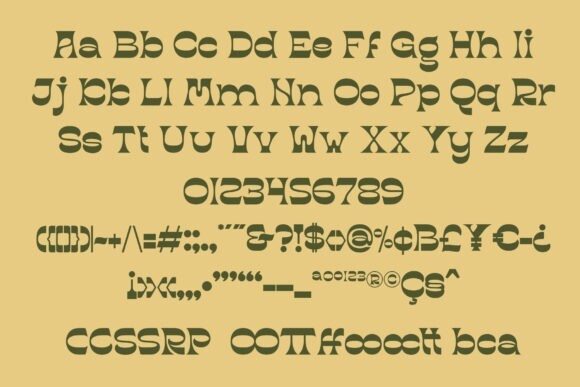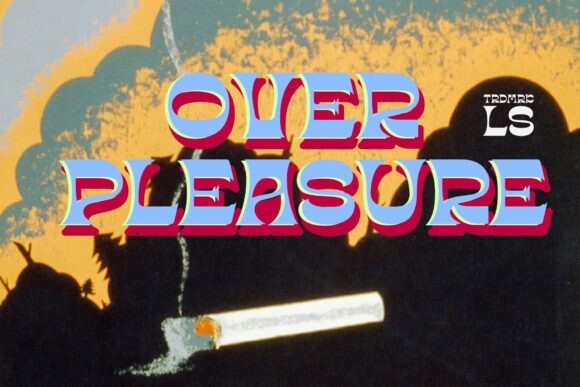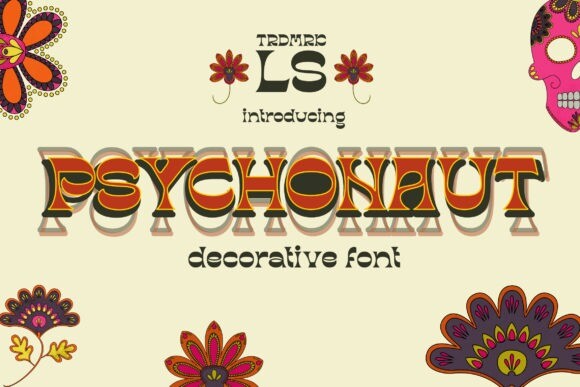
Psychonaut Font
Psychonaut Font is a cute and quirky display font. It will add an incredibly joyful touch to your designs. Add this beautiful display font to each of your creative ideas and notice how it makes them stand out!